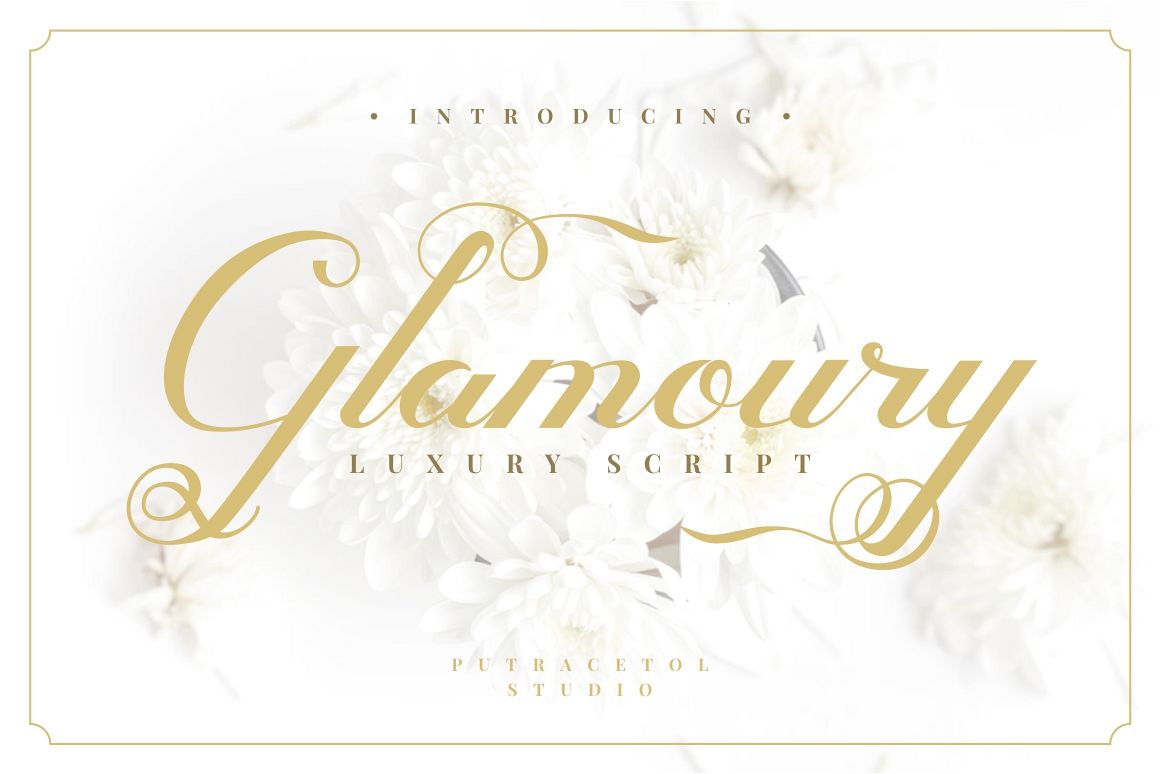
Glamoury
Introducing a Luxury script font called " Glamoury ". This font is glamour, royal, elegant, classic and beautiful decorative script font with a modern touch.
Come with open type feature with a lot of alternates, its help you to make great lettering.
Glamoury best uses for heading,cover, invitation, label, poster, logos, quotes, product packaging, header, merchandise, social media & greeting cards and many more.
This font is also support multi language.
Comes with feature :
- Alternate
- Number, Punctuation And Symbols
- Multilanguage Support.